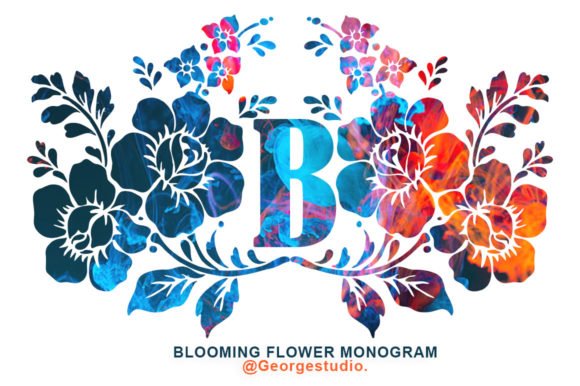
Introduction to Blooming Flower Monogram Font
Blooming Flower Monogram is a ravishing and highly detailed decorative font.
Its natural and unique style makes it incredibly fitting for a large pool of designs The only limit is your imagination.
Key Features of Blooming Flower Monogram Font
Why Choose Blooming Flower Monogram Font?
Blooming Flower Monogram Font offers exceptional quality and versatility, making it a valuable addition to your design toolkit. Whether you’re creating for personal projects or commercial use, Blooming Flower Monogram Font delivers professional results.